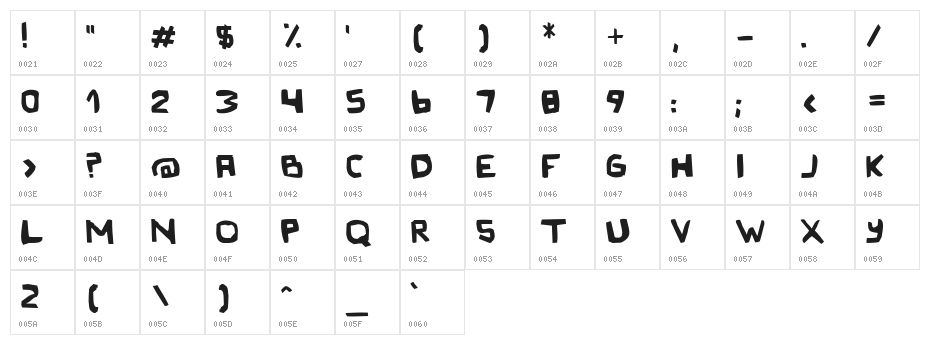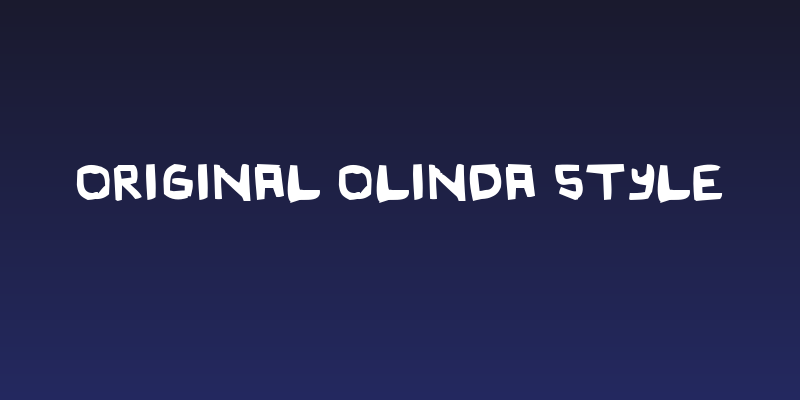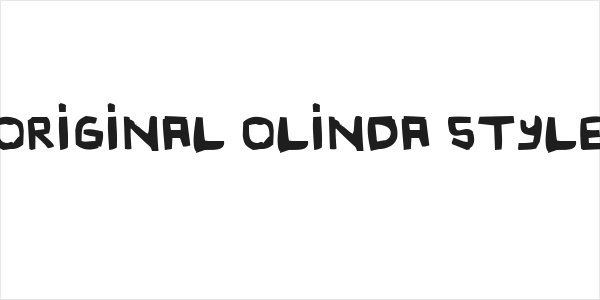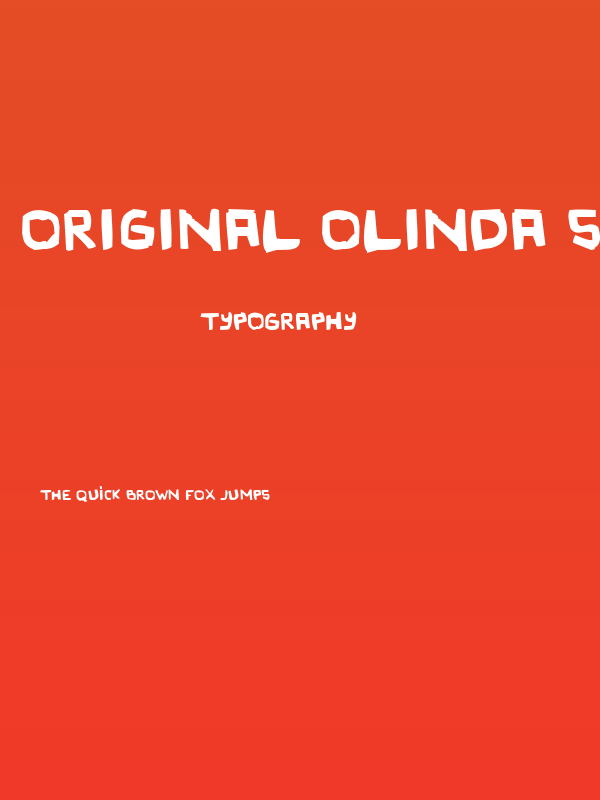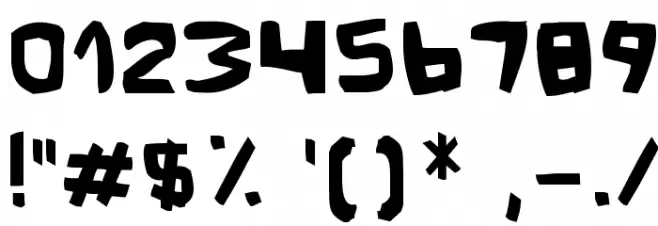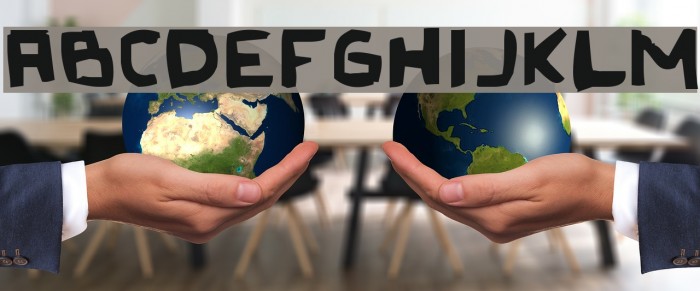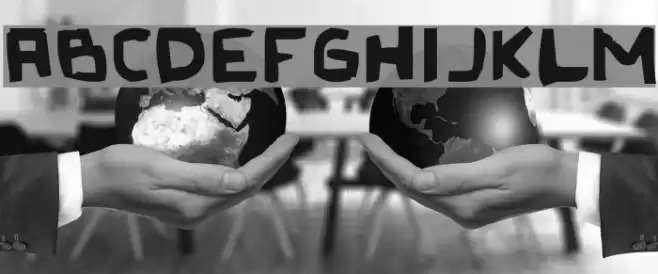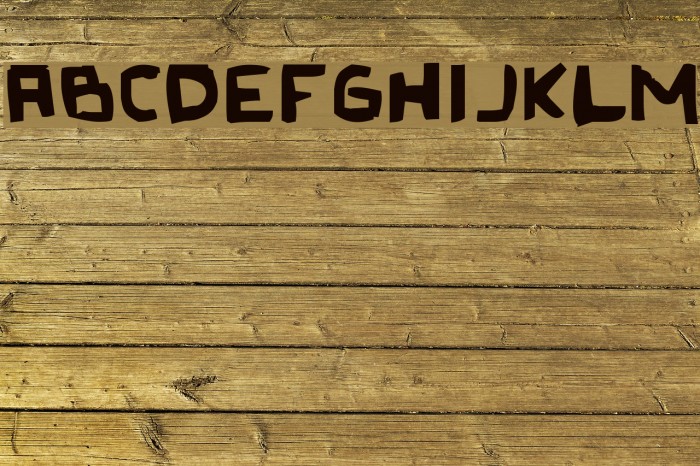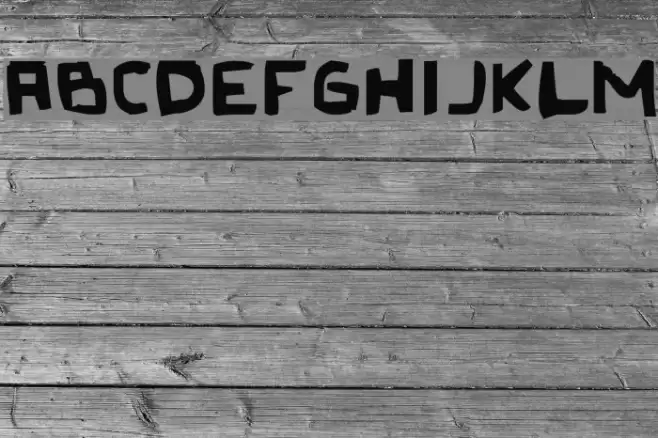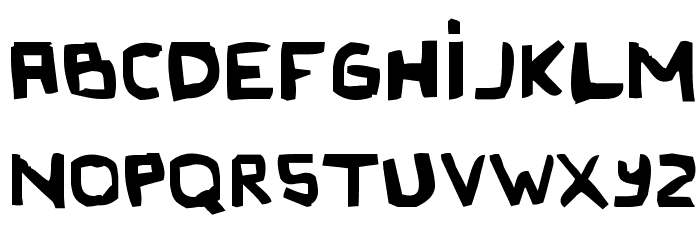
Original Olinda Style Font
Original Olinda Style Description
This font features a bold and playful design with irregular, hand-drawn characteristics. The letters have a slightly uneven baseline, giving them a dynamic and lively appearance. The strokes are thick and vary in width, adding a sense of movement and energy. The overall style is reminiscent of graffiti or street art, making it stand out with its unique and artistic flair. The numbers and special characters maintain the same playful and bold style, ensuring consistency throughout the character set. This font is ideal for projects that require a fun and informal touch.
| Proposed Projects | Ideal for posters, children's books, comic strips, and creative branding projects. |